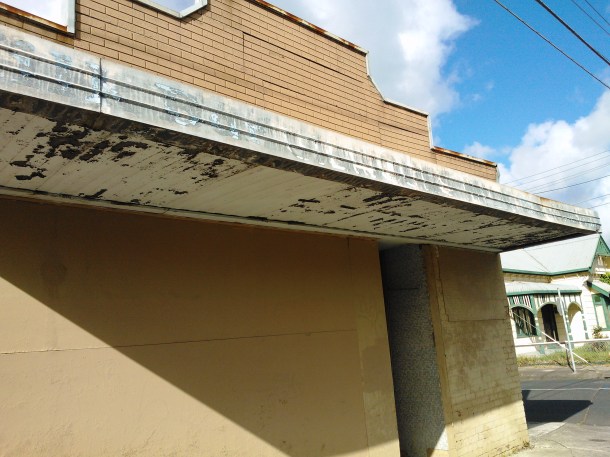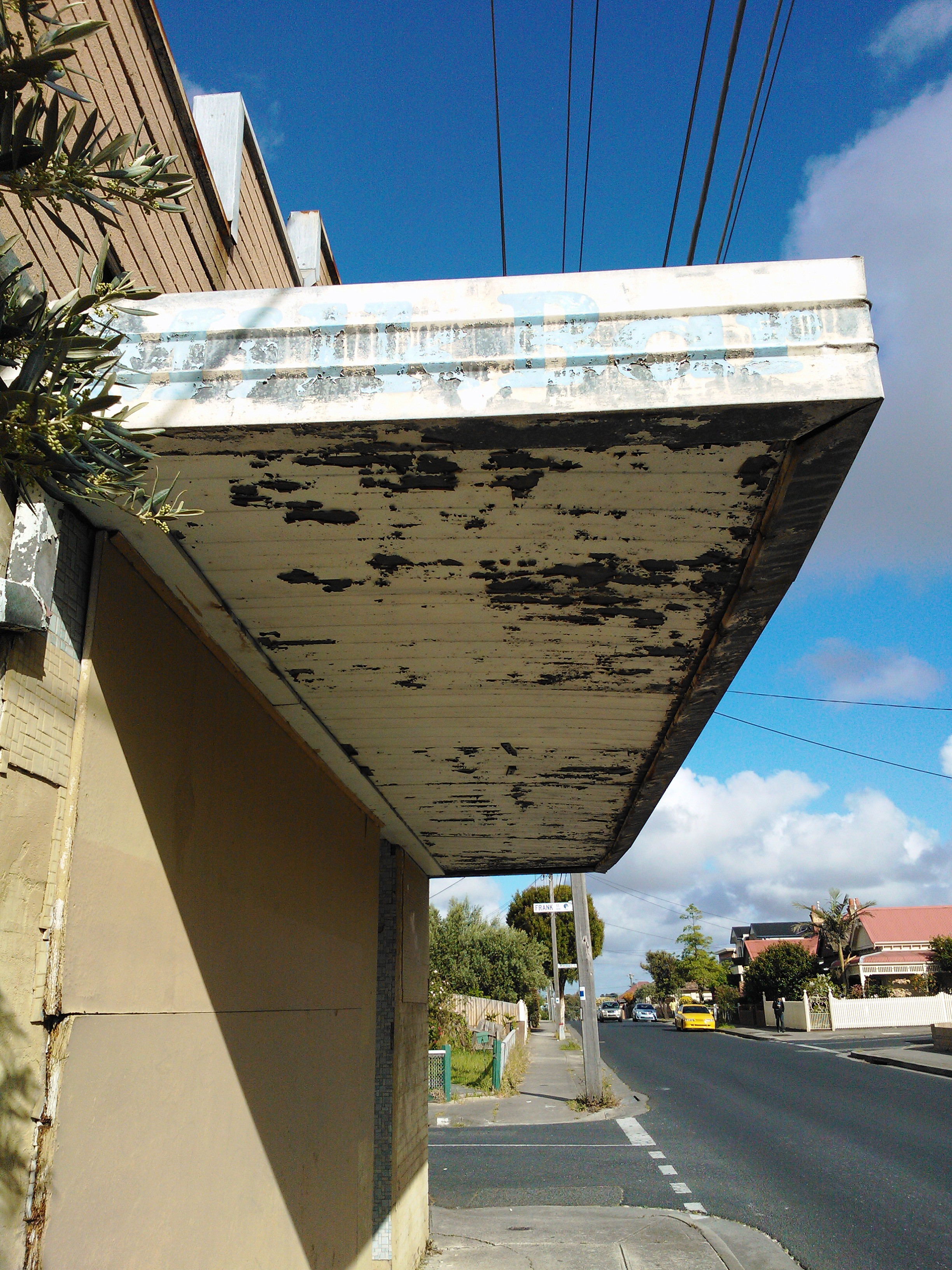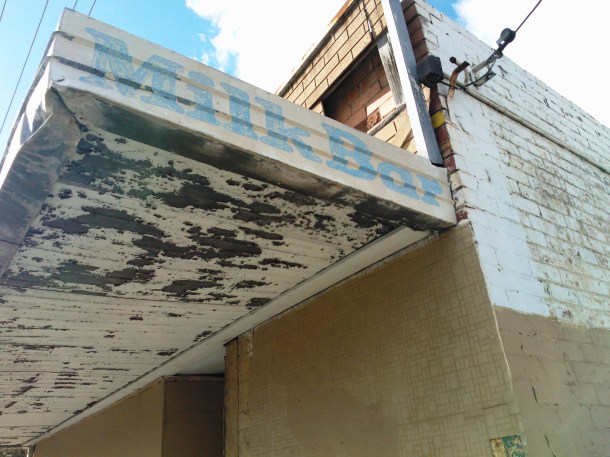
Gilmour’s Milk
Munro St, Coburg.
Well, well, well … What have we here? Did somebody order another Gilmore’s Milk sign?
So, this is the 3rd encounter with Glimour’s Milk now, (also here, and here.) These guys may require  little more looking into …
Now, some of these old milk bars are looking pretty tired, I’ll admit it, but this one looks like a goddamn horror show. Boarded up windows complete with rotting chipboard, fake brick cladding …. I’m half expecting ol’ Leatherface to stumble out and lope menacingly in my general direction.
A pretty funky looking little sign, really. Has a bit of the classic Coopers Black vibe to it, (in blue , obviously.) Unfortunately there was nothing of note on the wall you can see to the right. I’m sure there was once, but not anymore. All the more reason to keep doing this, i’d say.